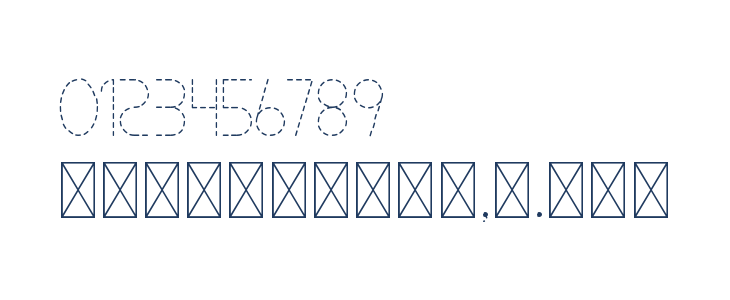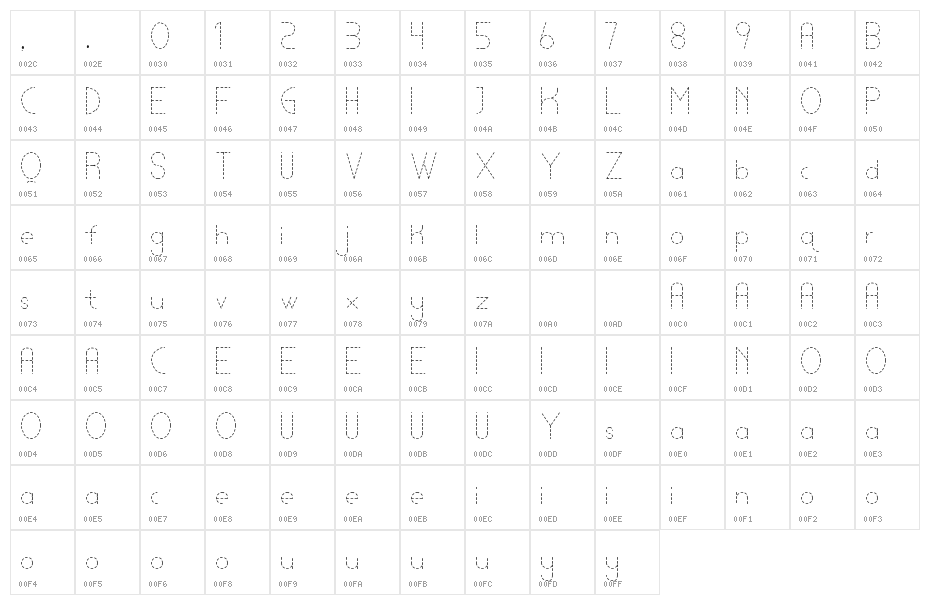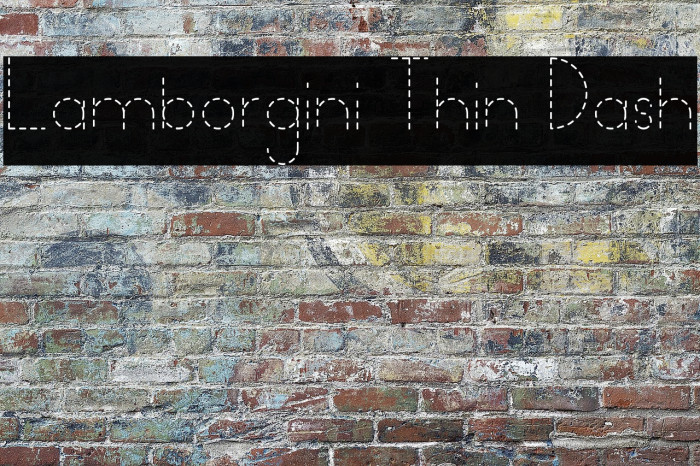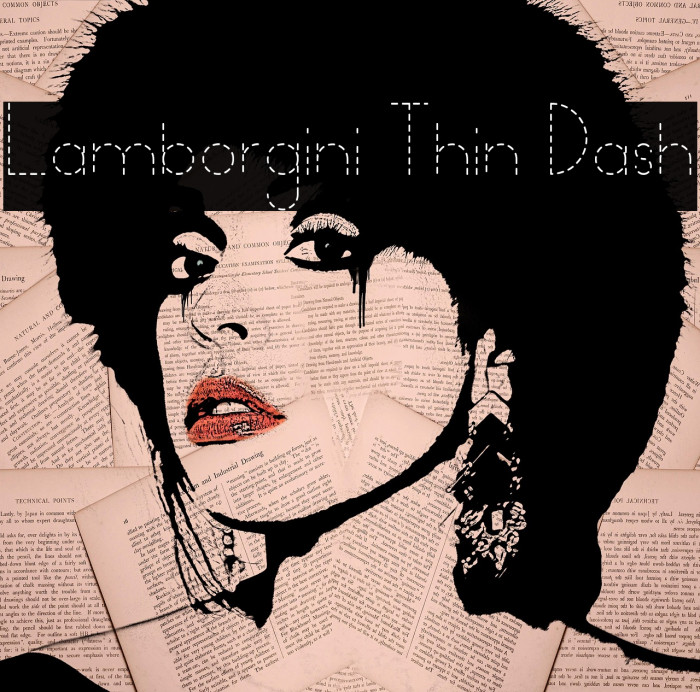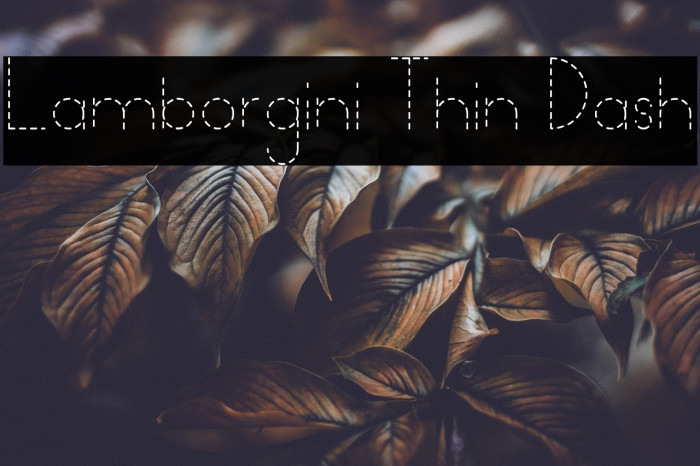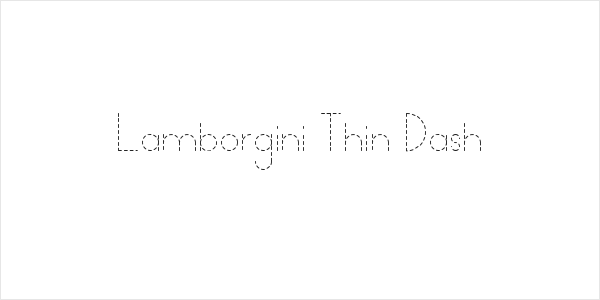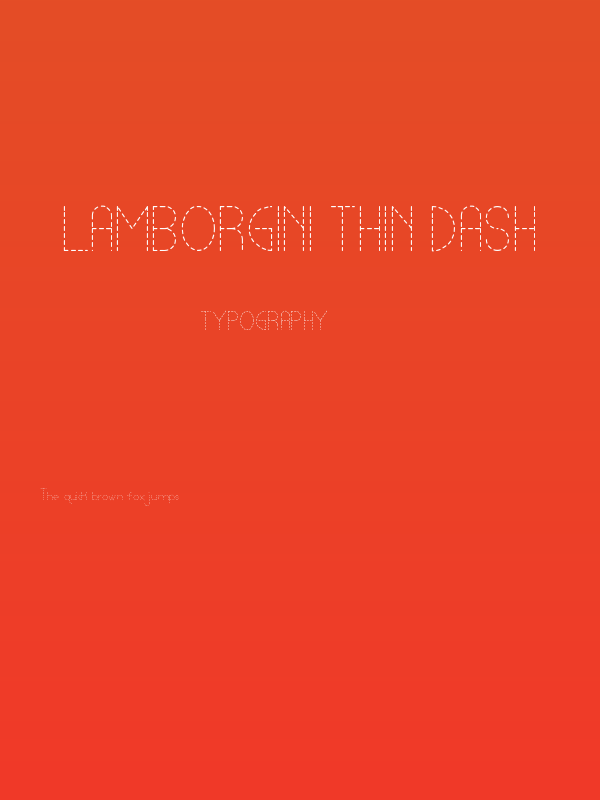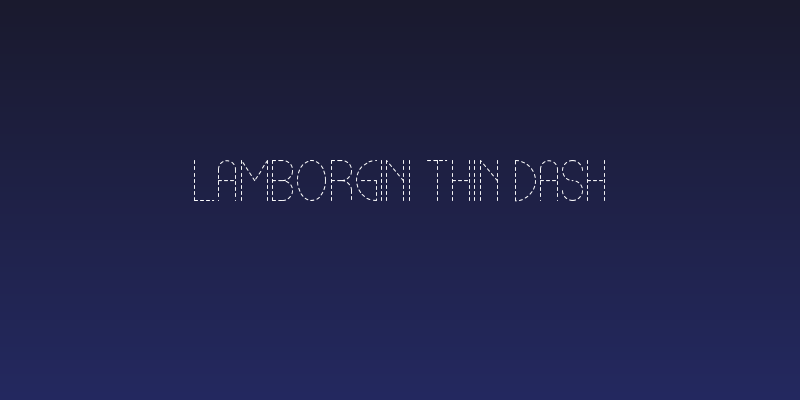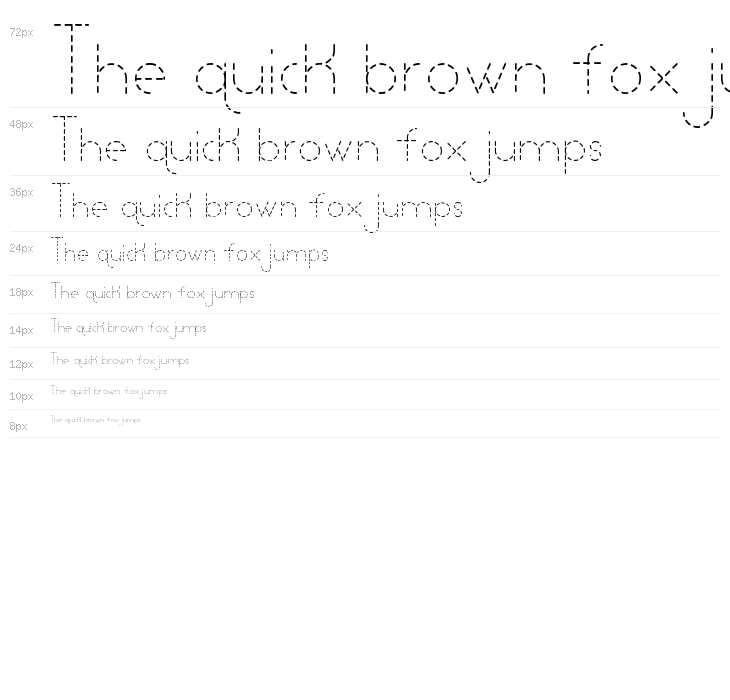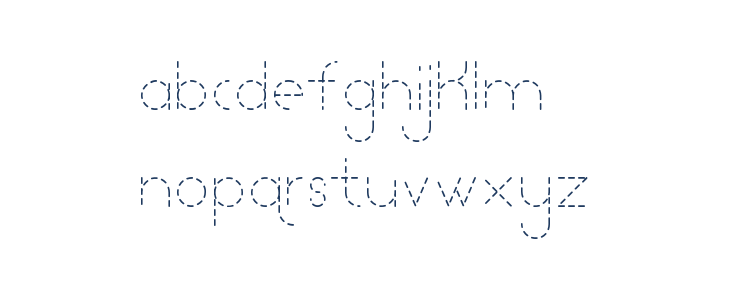
Lamborgini Thin Dash Font
Lamborgini Thin Dash Description
This font features a unique dashed line style that gives it a modern and playful appearance. Each character is composed of evenly spaced dashes, creating a sense of movement and rhythm. The uppercase and lowercase letters maintain a consistent height and width, ensuring readability while adding a distinctive visual flair. The numbers and special characters follow the same dashed pattern, making them cohesive with the alphabet. This font's thin strokes and geometric shapes contribute to its contemporary and stylish look, suitable for creative and innovative design projects.
Proposed ProjectsIdeal for creative projects such as logos, posters, and digital graphics where a modern and playful aesthetic is desired.